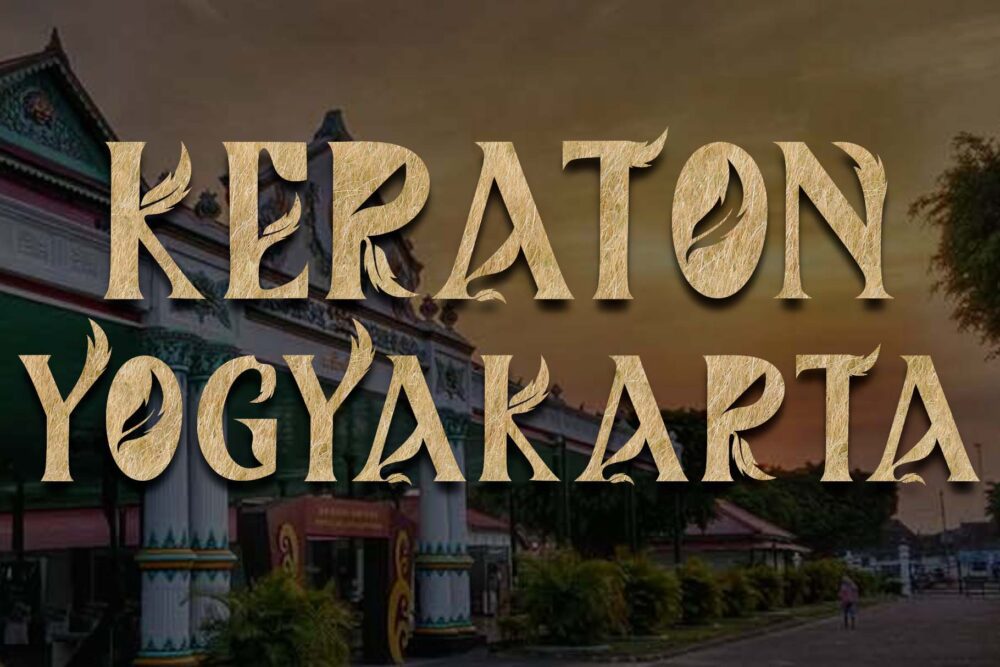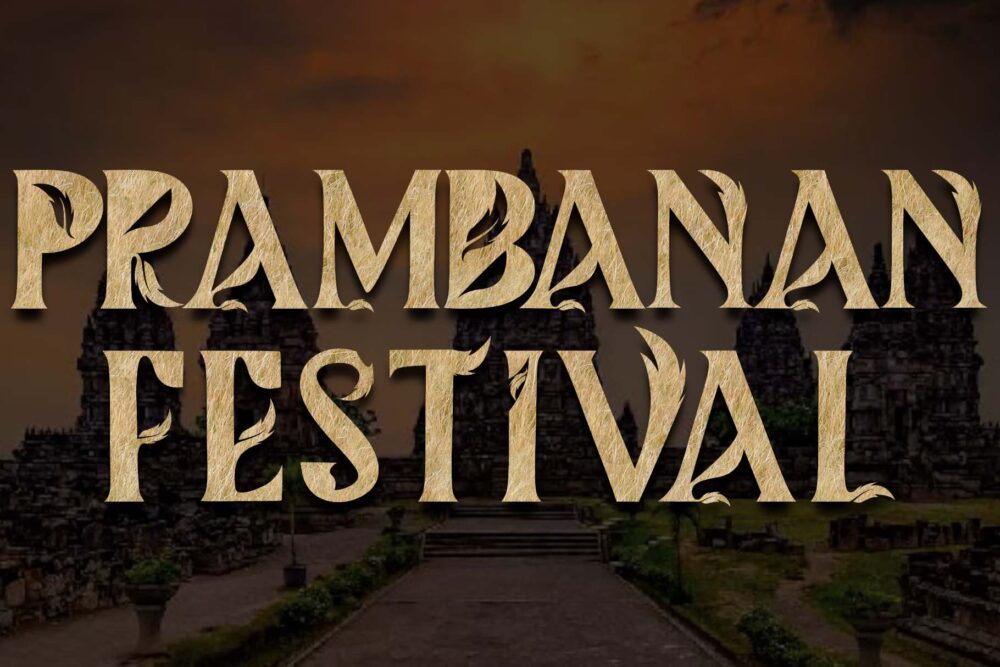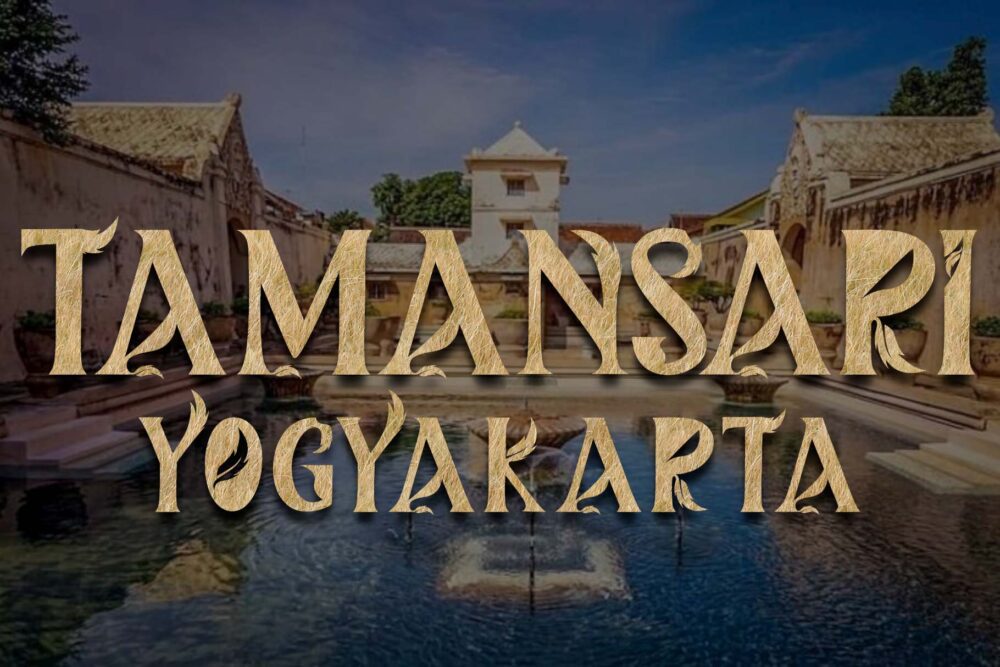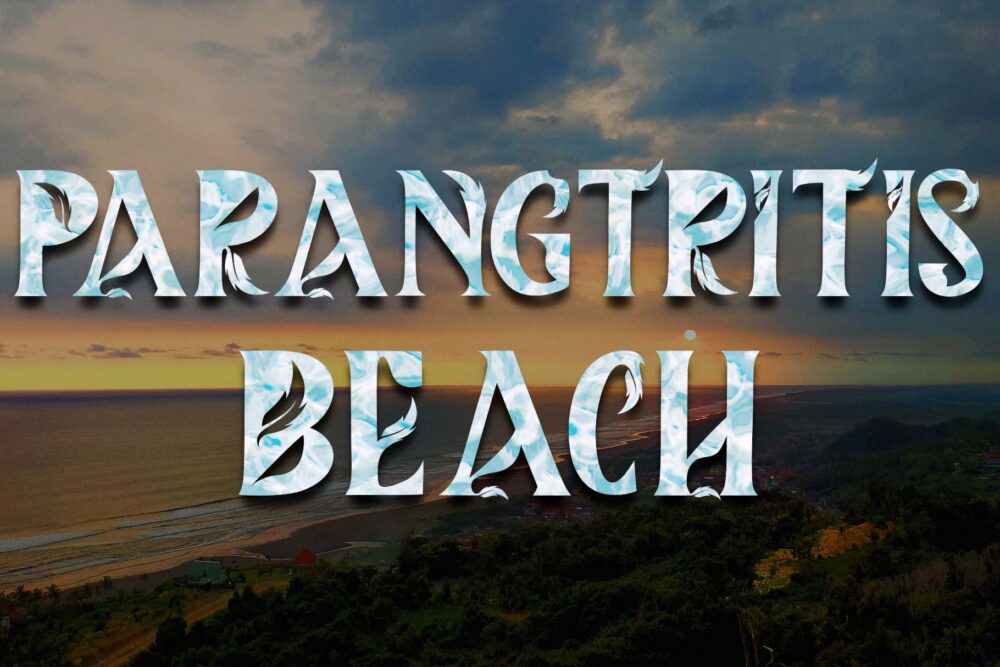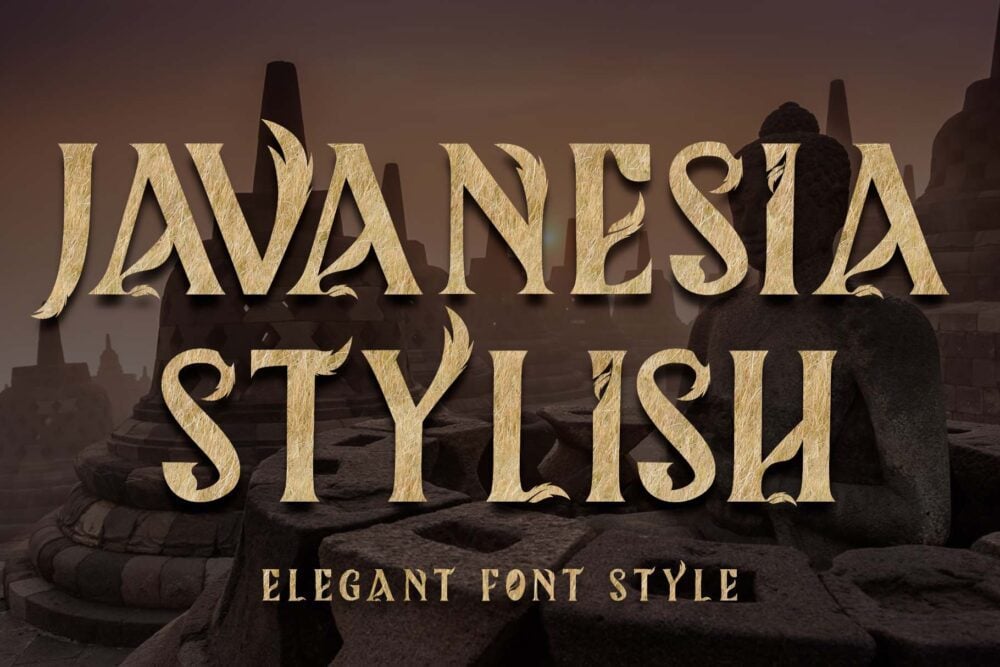
Javanesia Stylish Font
Javanesia Stylish is a captivating blackletter font that effortlessly blends professionalism with elegance. Its intricate details and flowing curves evoke a sense of tradition and sophistication. This versatile font is perfect for a variety of design projects, including logos, invitations, posters, and more. Whether you’re aiming for a classic or modern aesthetic, Javanesia Stylish adds a touch of timeless charm to your designs.